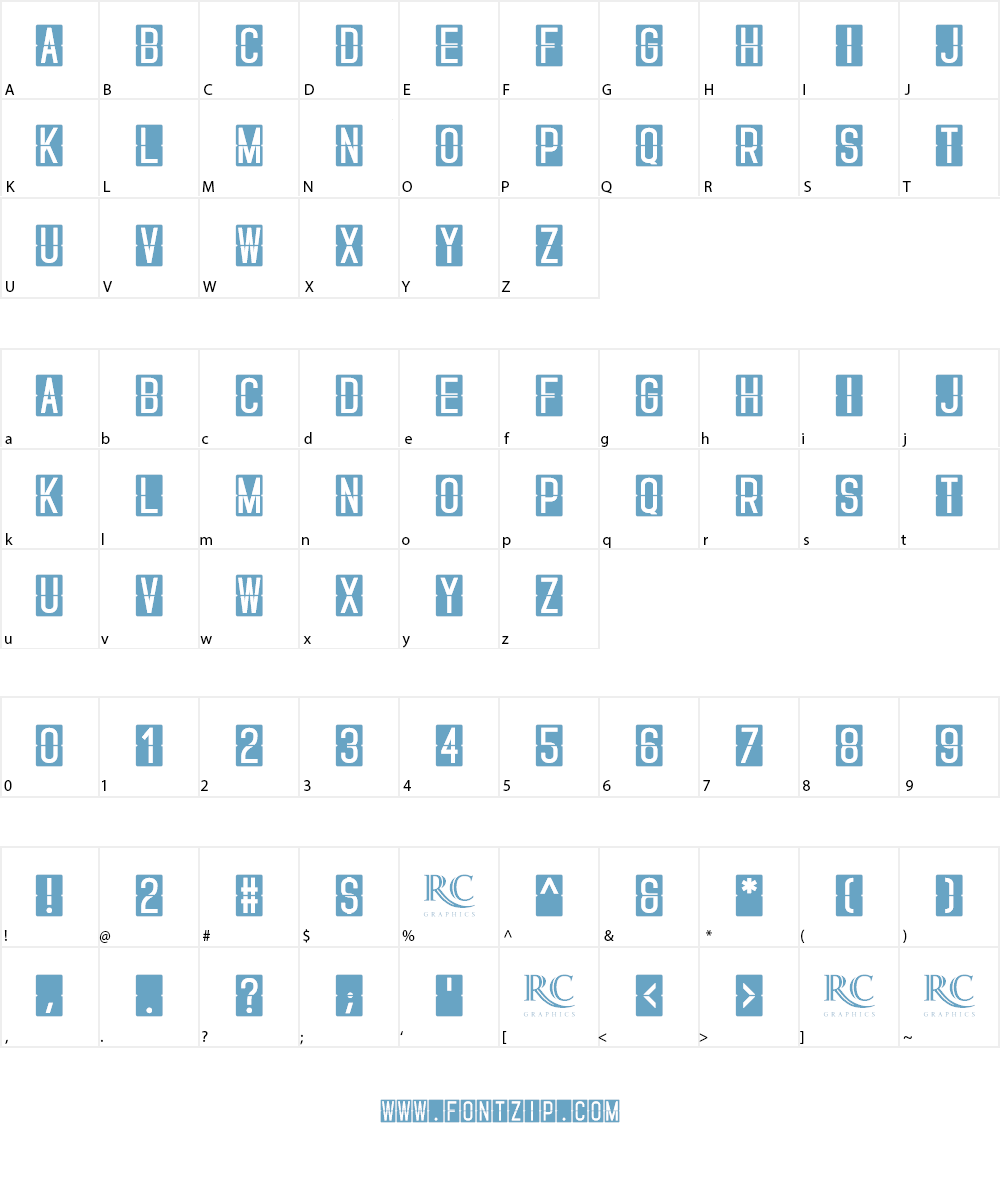
Introducing Skyfont - Sans Serif Font
Skyfont is a strong and clean sans serif font. It's a versatile font family designed for strong, classic branding. Skyfont works great in any branding, logos, magazines, videos, product packaging, website headers, clothing designs and much more.